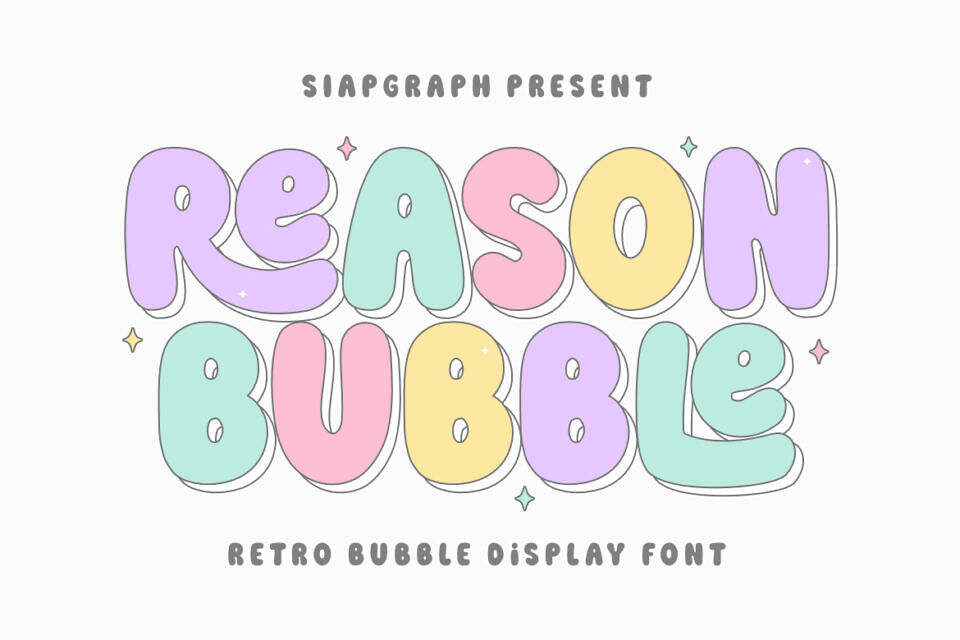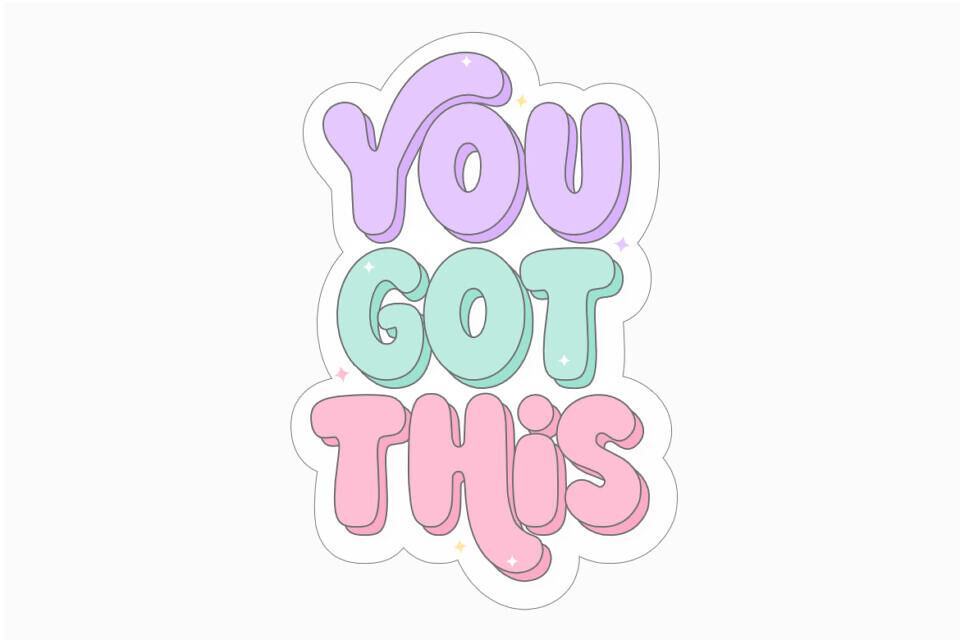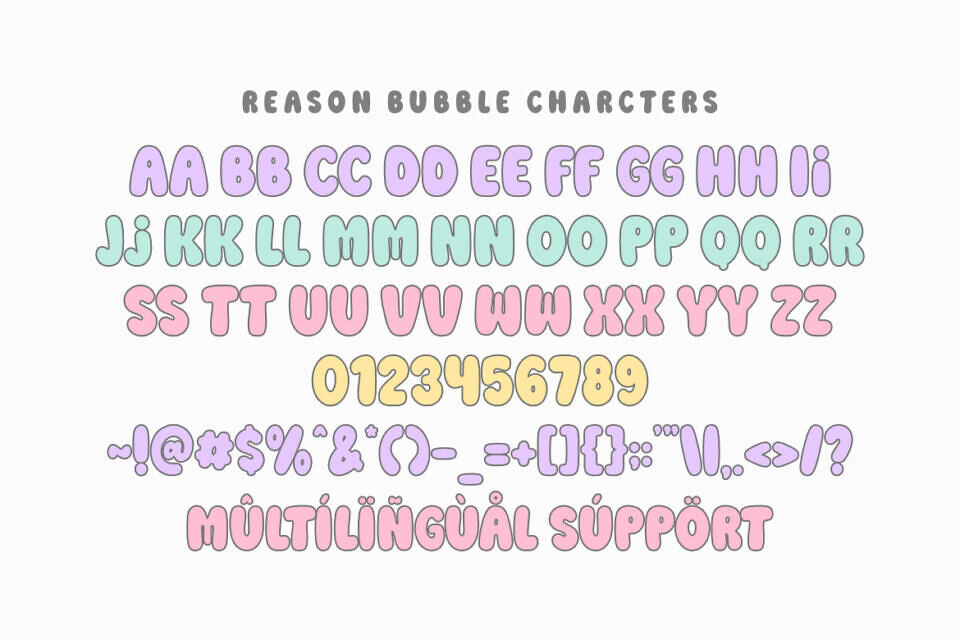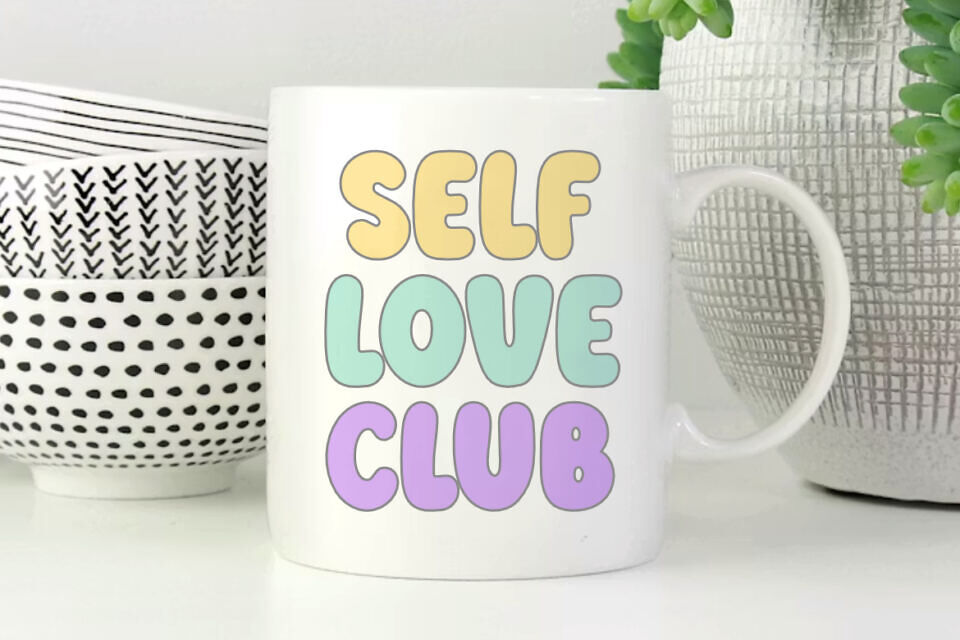
Reason Bubble Font
Reason Bubble is a retro bubble display font that radiates joy and playfulness. With its thick, rounded letterforms and charming, bubbly aesthetic, this typeface is perfectly crafted for designs that need to look friendly, fun, and eye-catching.
The bouncy, dimensional look of this font adds an instant sense of energy to your creative projects. Its clean, bold construction is specifically optimized for the crafting community, ensuring a seamless and frustration-free experience for vinyl cutting, sublimation, and high-quality digital printing.